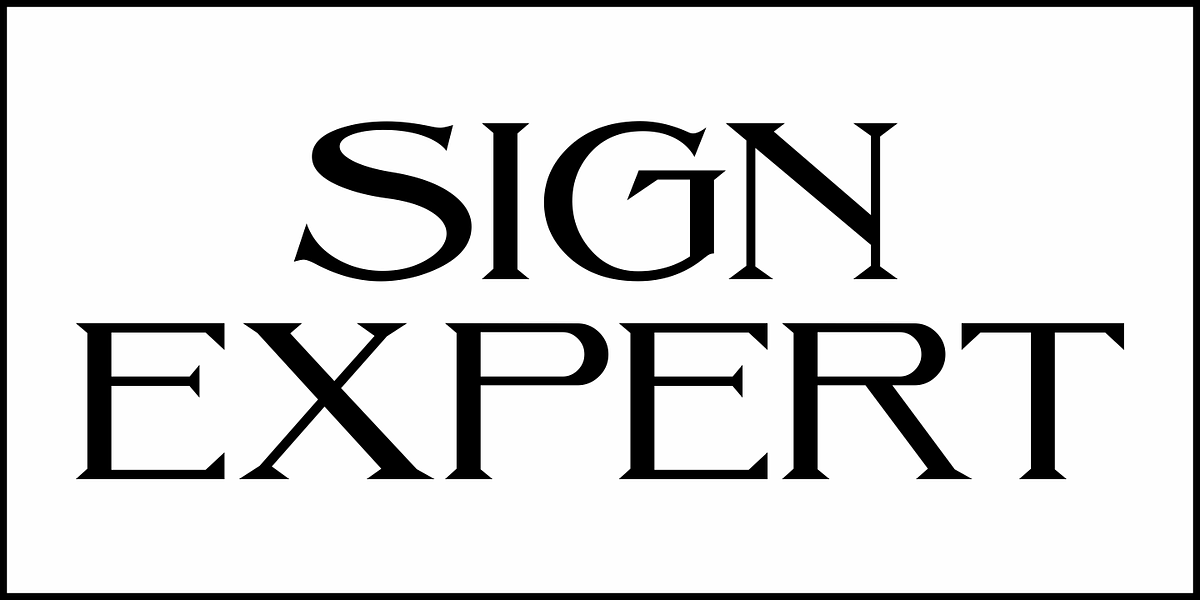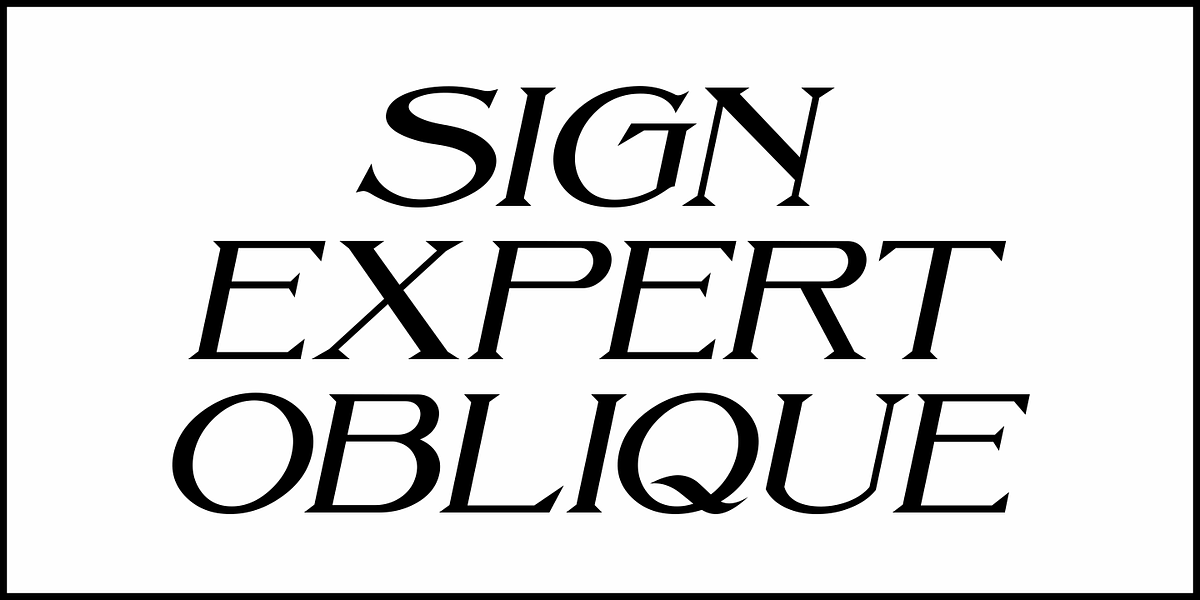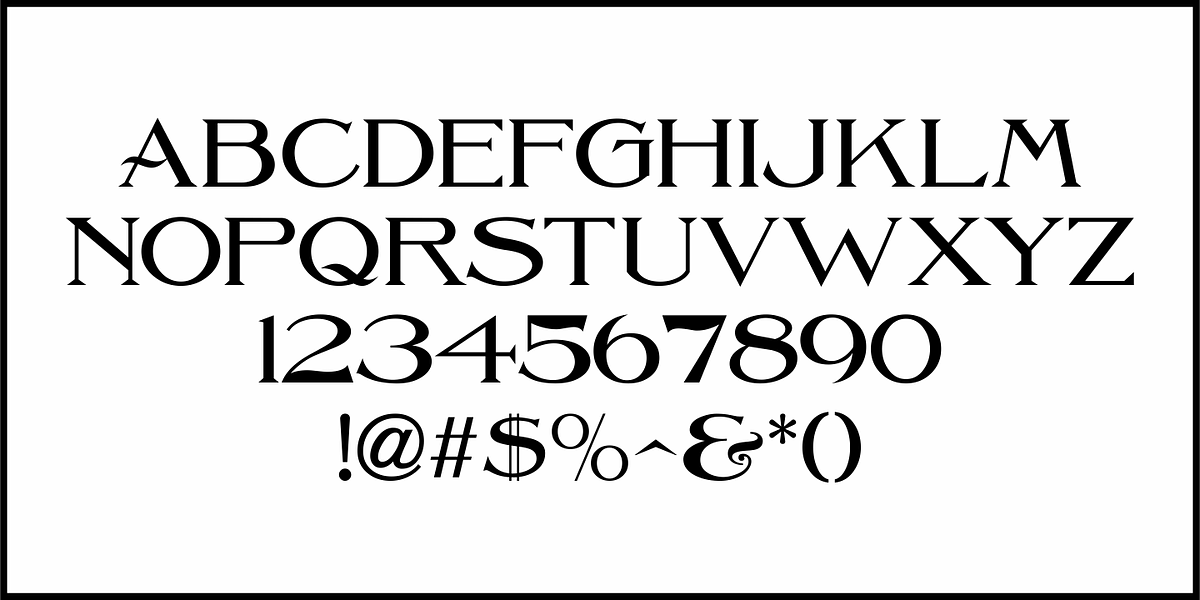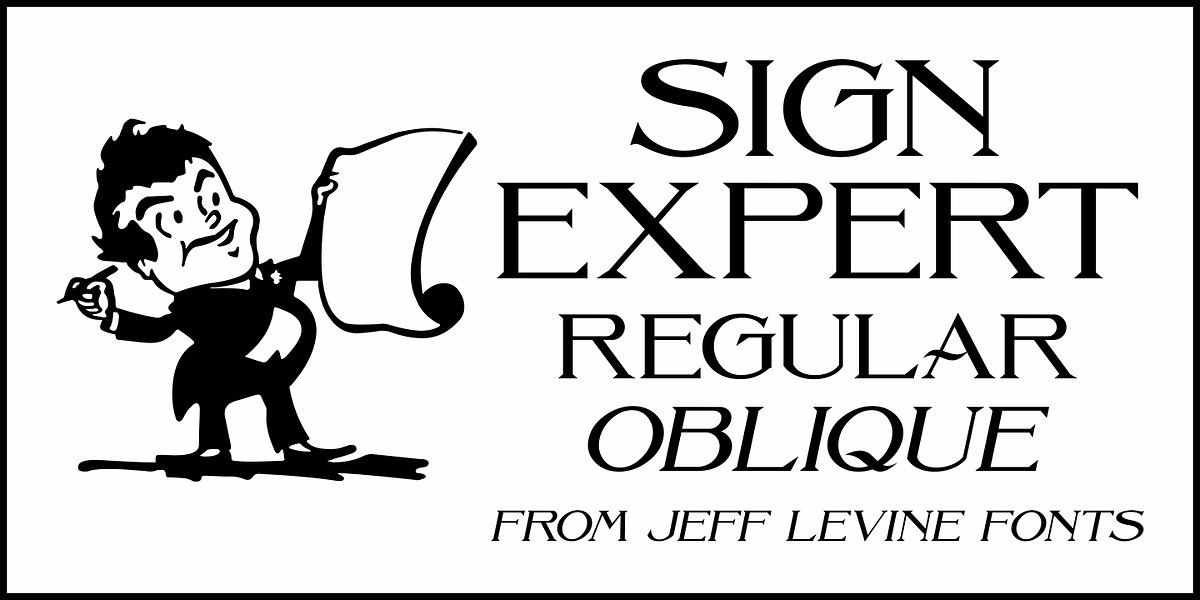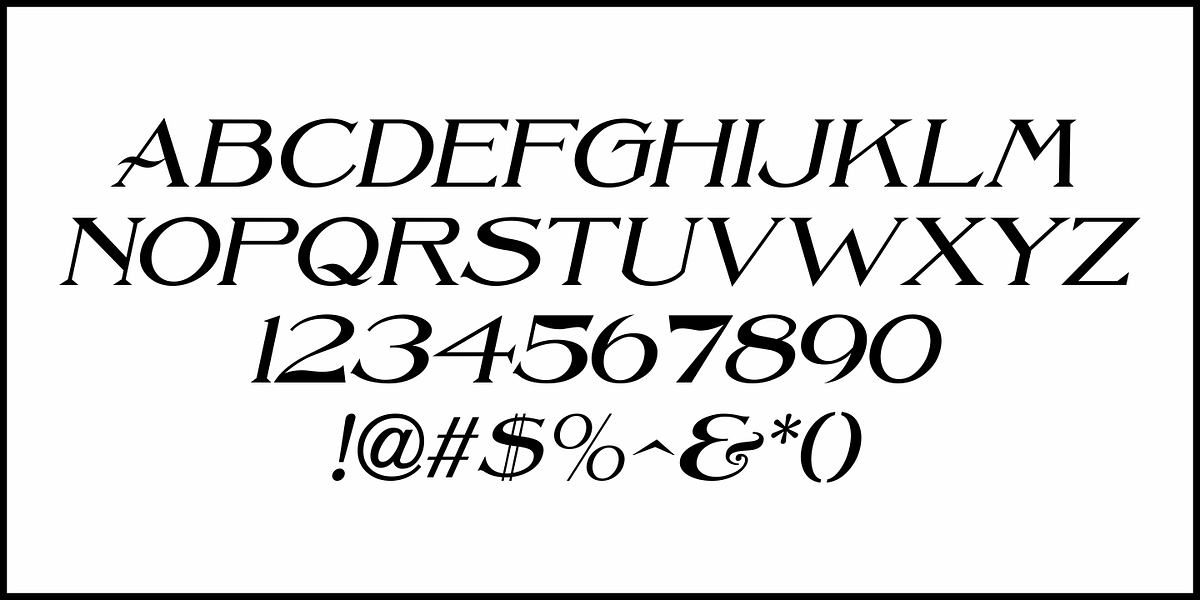
Sign Expert JNL
An elegant, yet informal Roman alphabet with Art Nouveau influences was found amidst the pages of the 1922 edition of “The Expert Sign Painter”.
It is now available digitally as Sign Expert JNL in both regular and oblique versions.